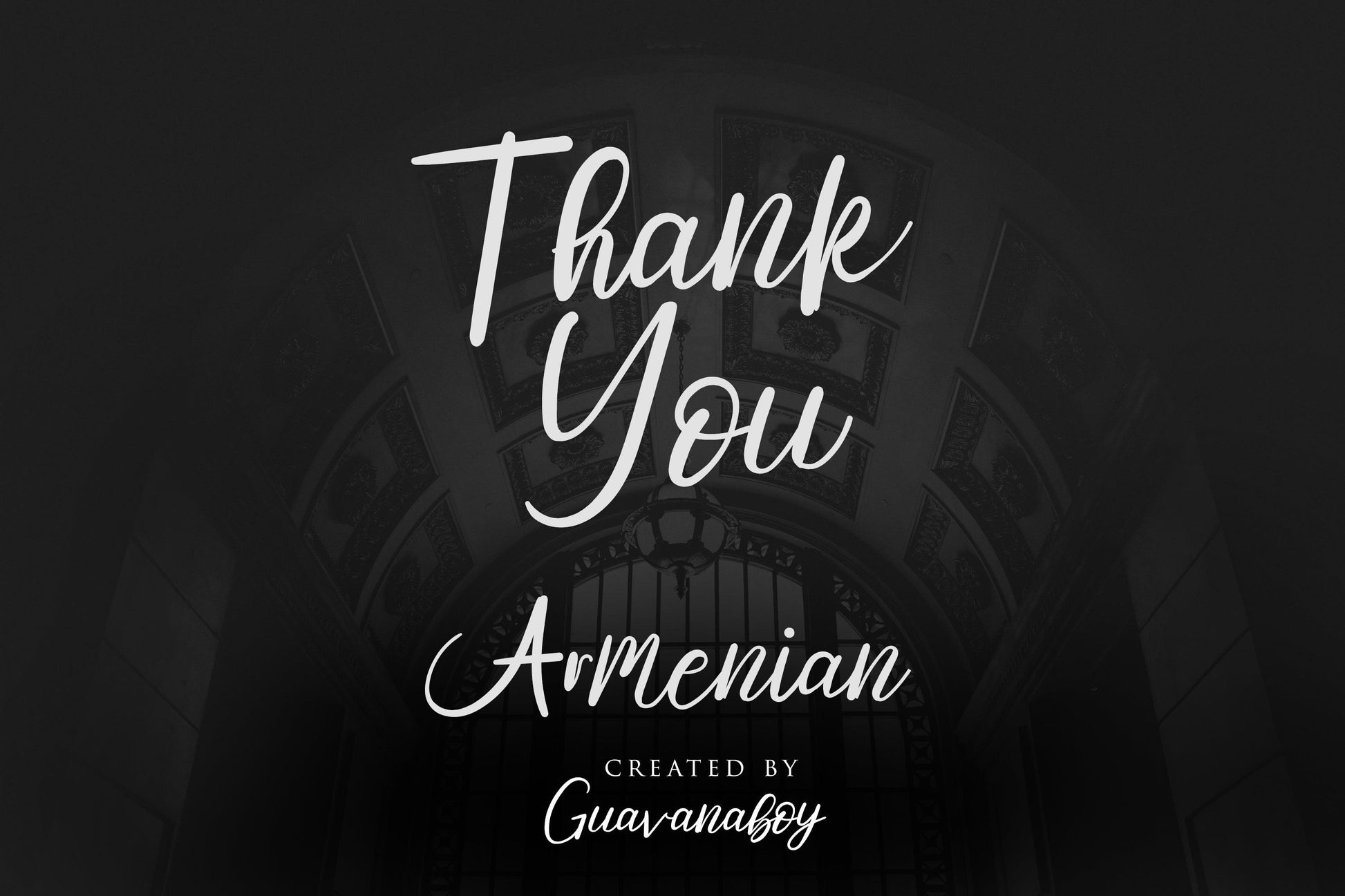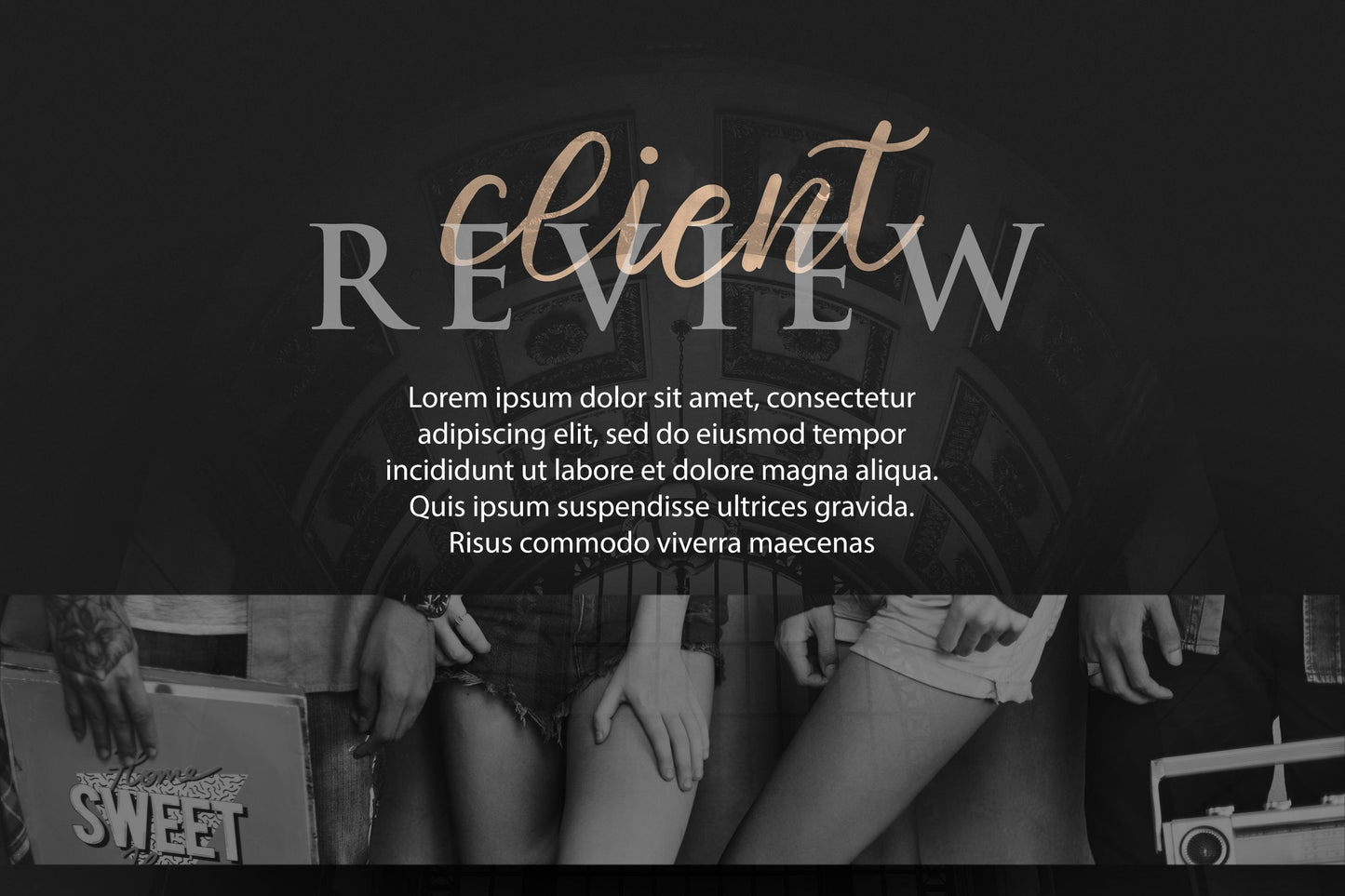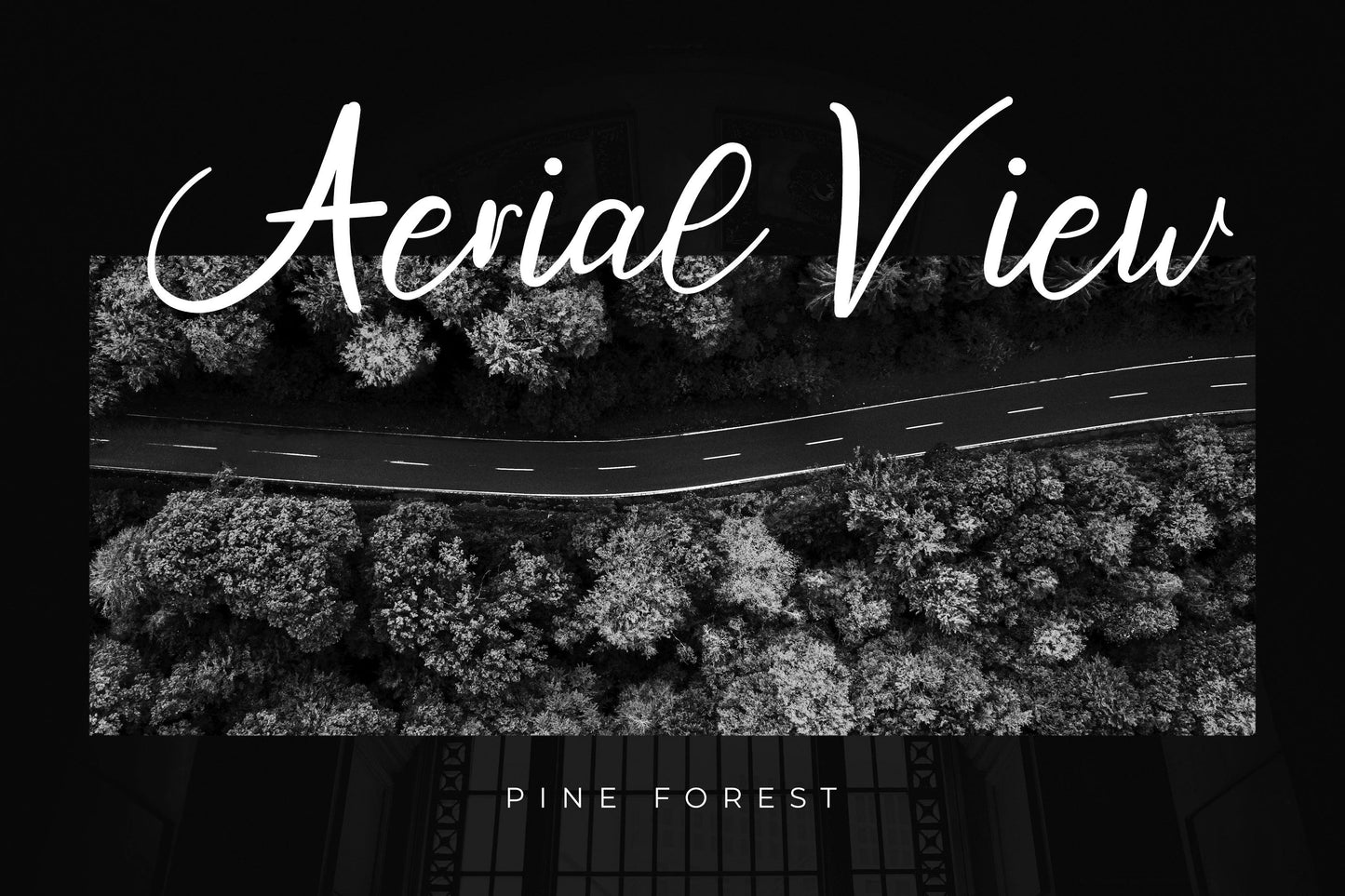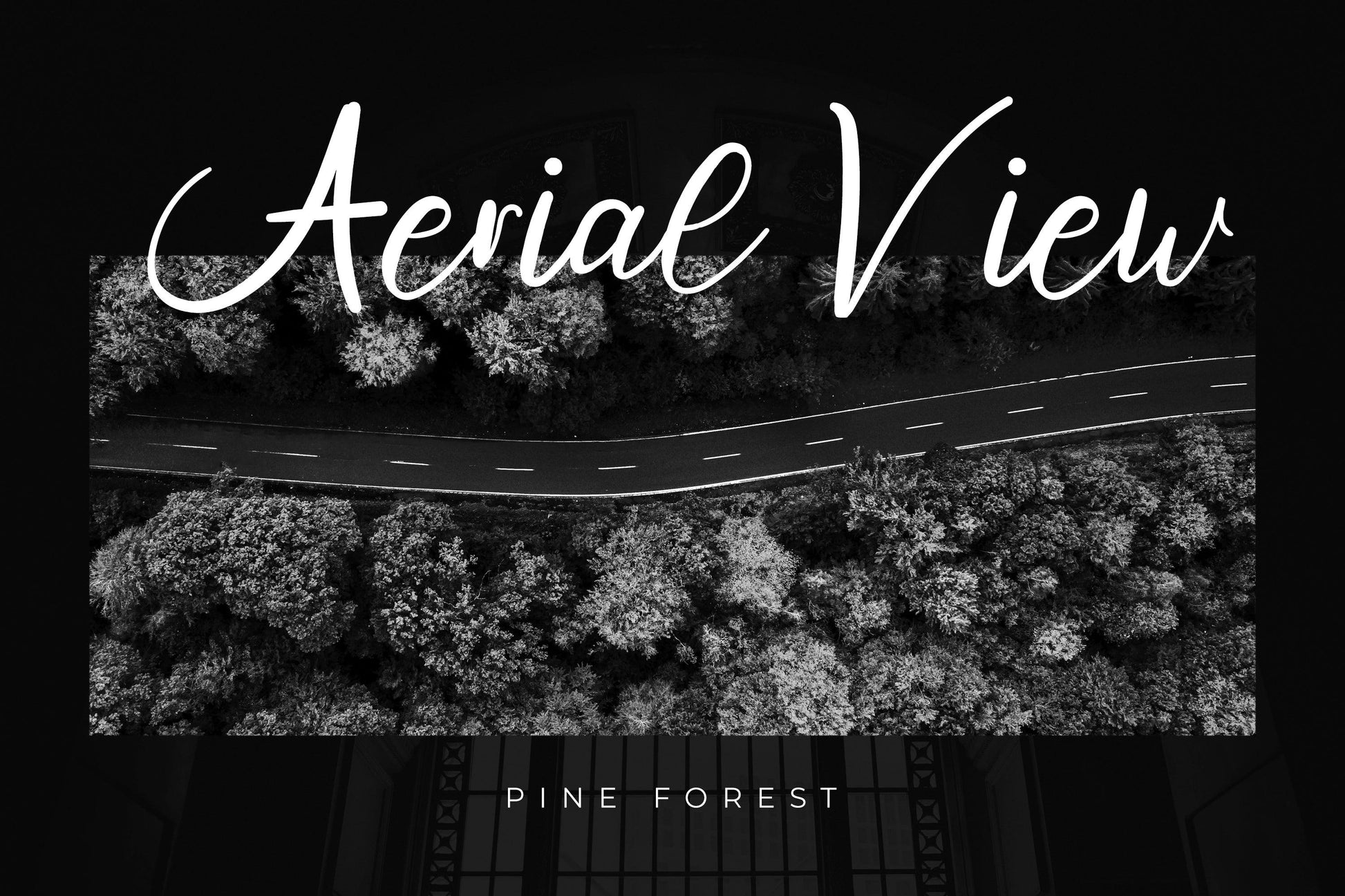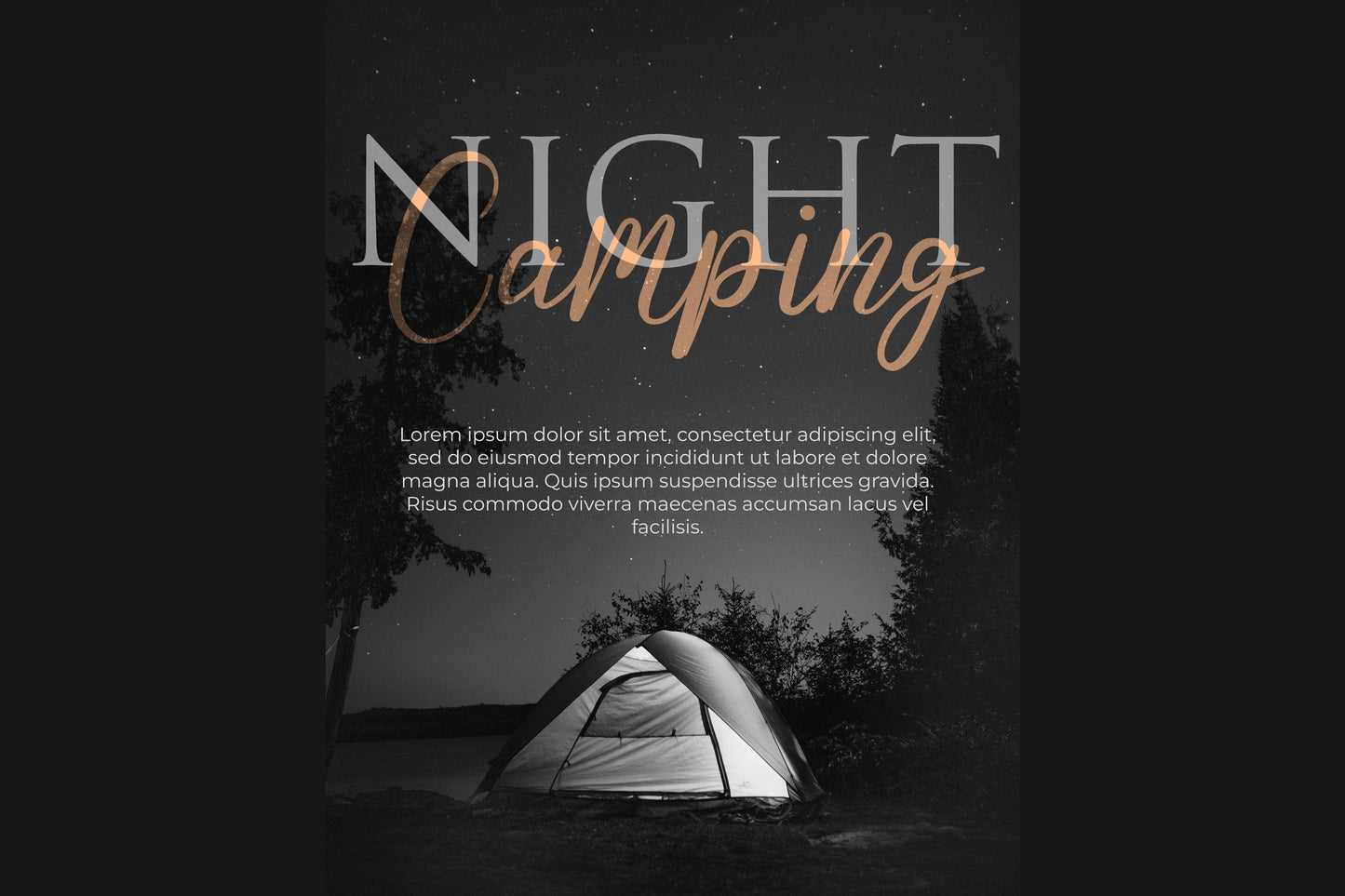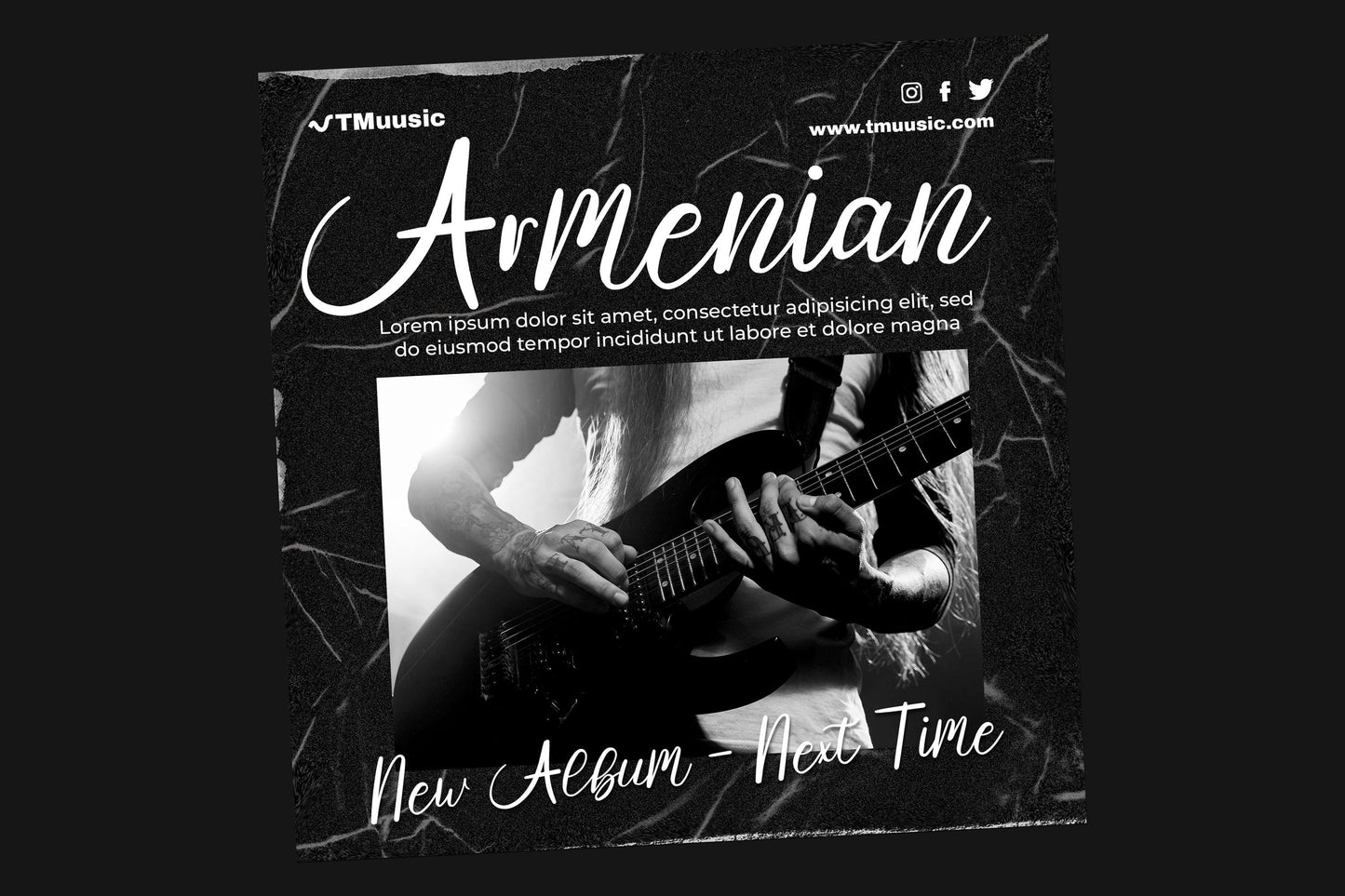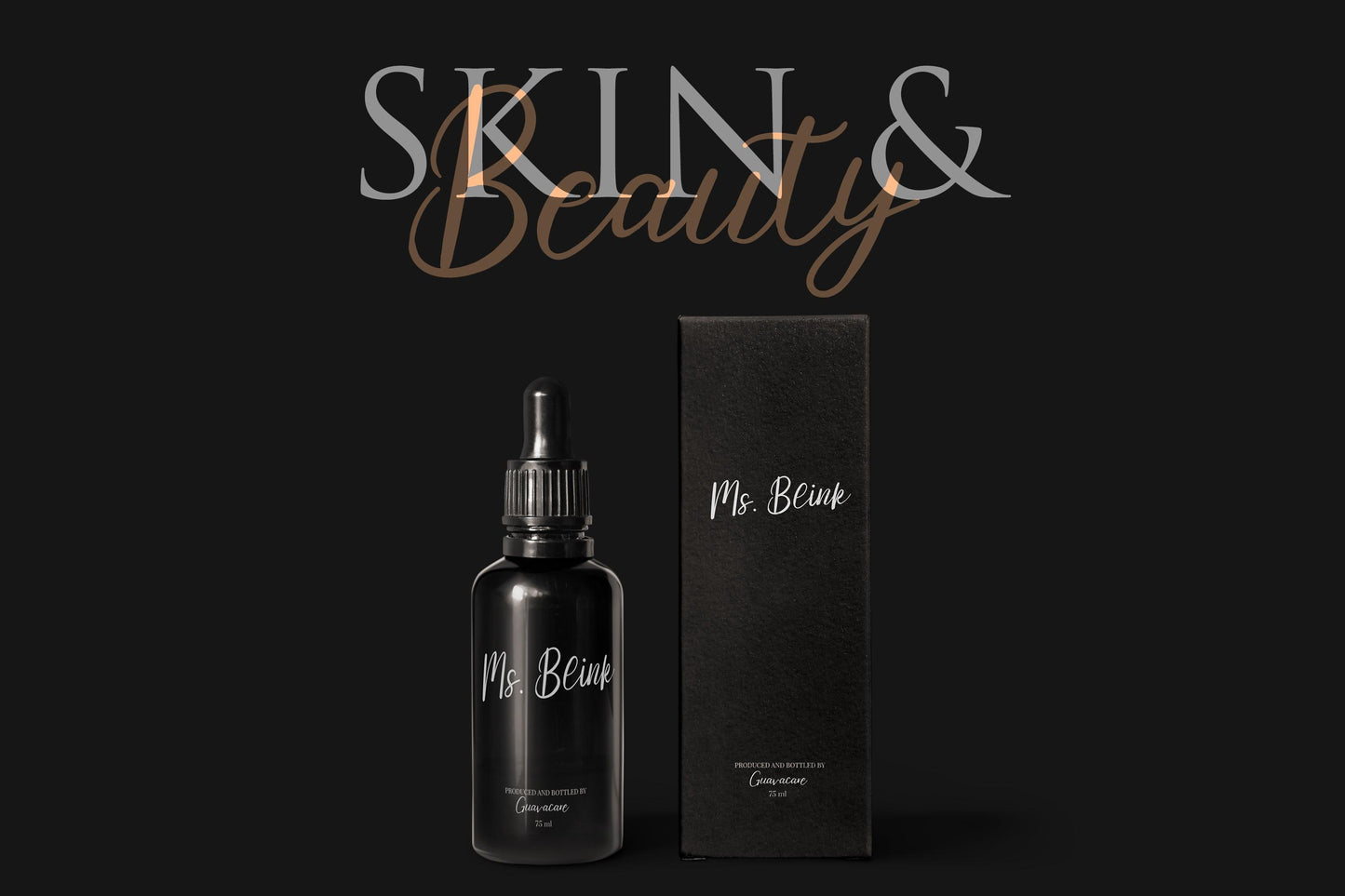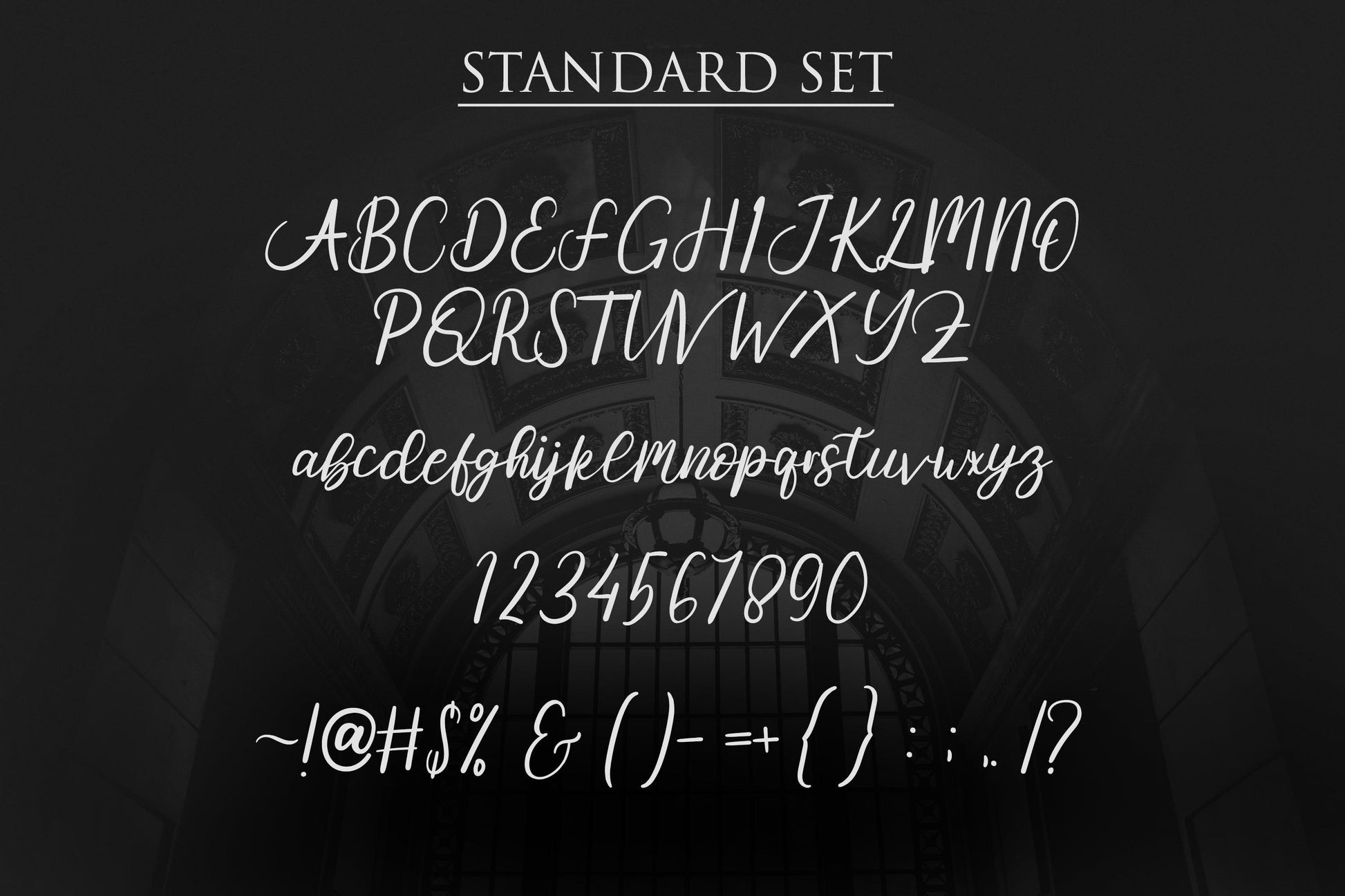
Armenian - Modern Brush Style Font
Introducing Armenian, a bold and dynamic Modern Brush Style Font designed to make a statement. With its handcrafted brush strokes and stylish flair, Armenian adds energy and personality to your designs. Perfect for branding, social media posts, event flyers, logos, packaging, and more, this versatile font is the ideal choice for creatives looking to bring their projects to life. Armenian combines raw artistic energy with modern aesthetics for stunning results.
- Complete Character Set: Includes uppercase, lowercase, numbers, punctuation, and multilingual support.